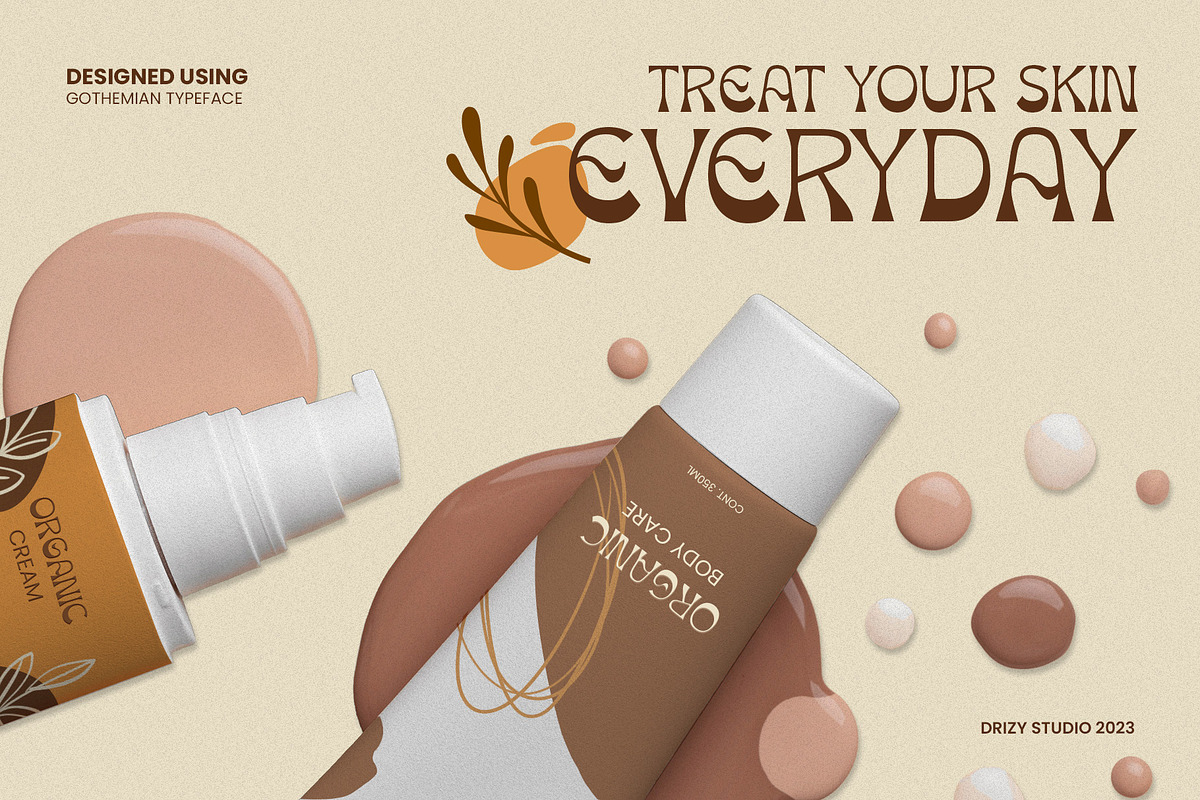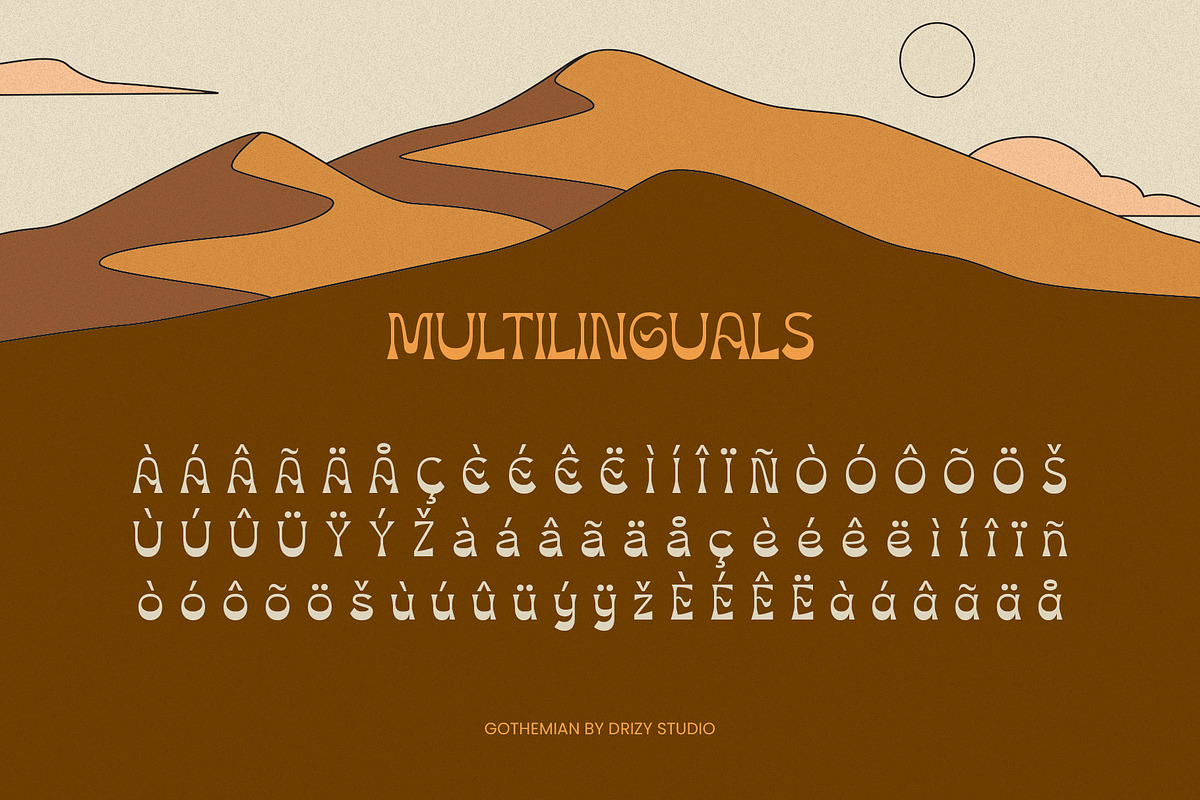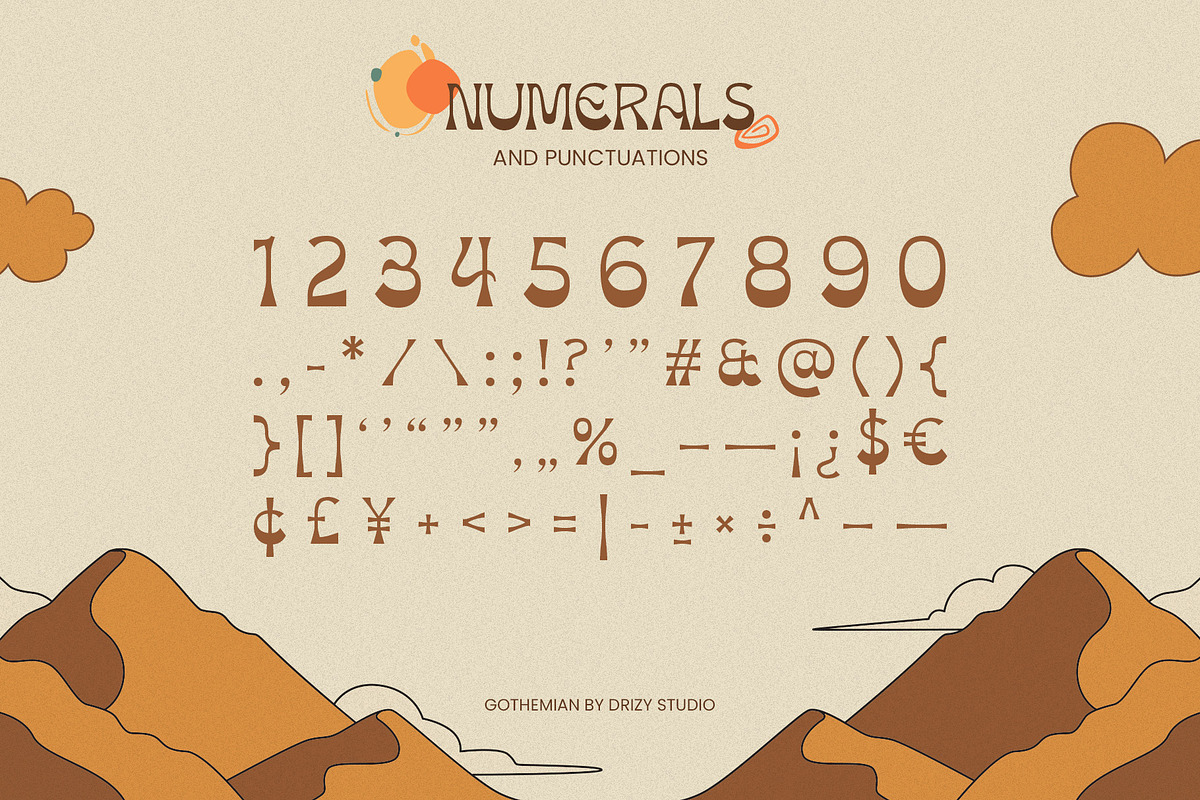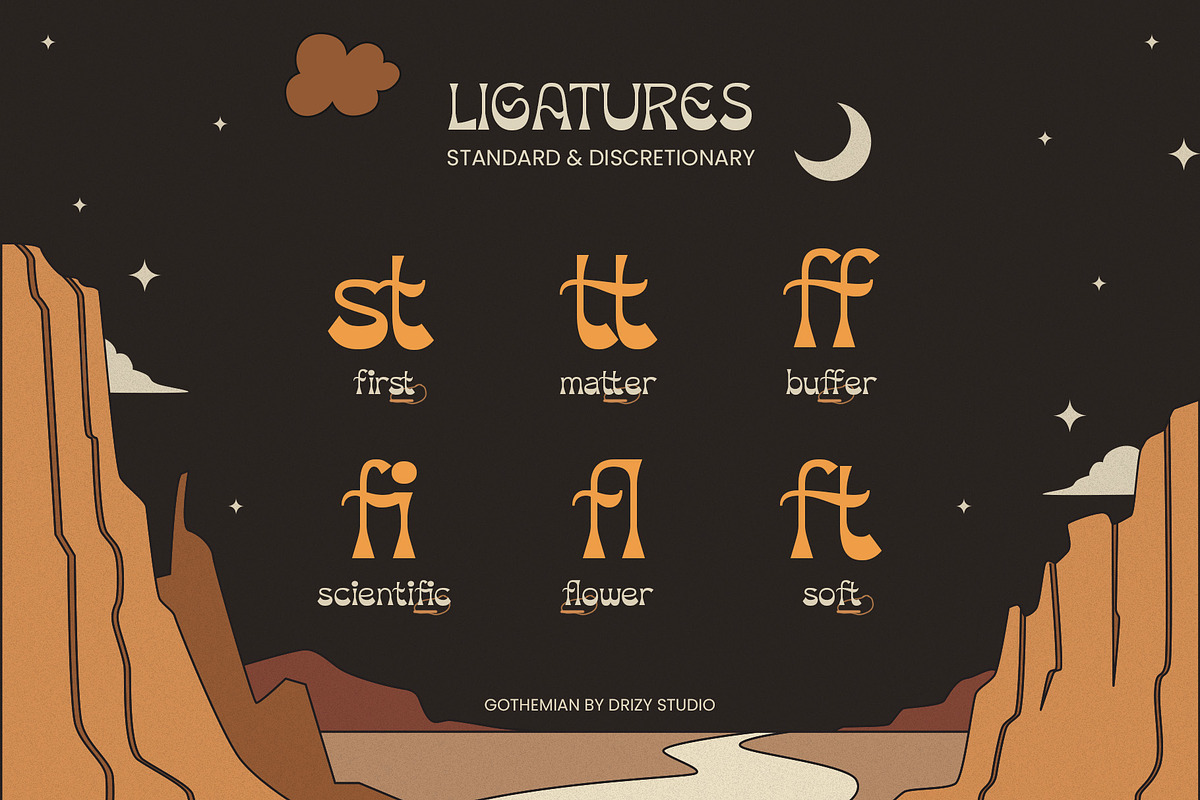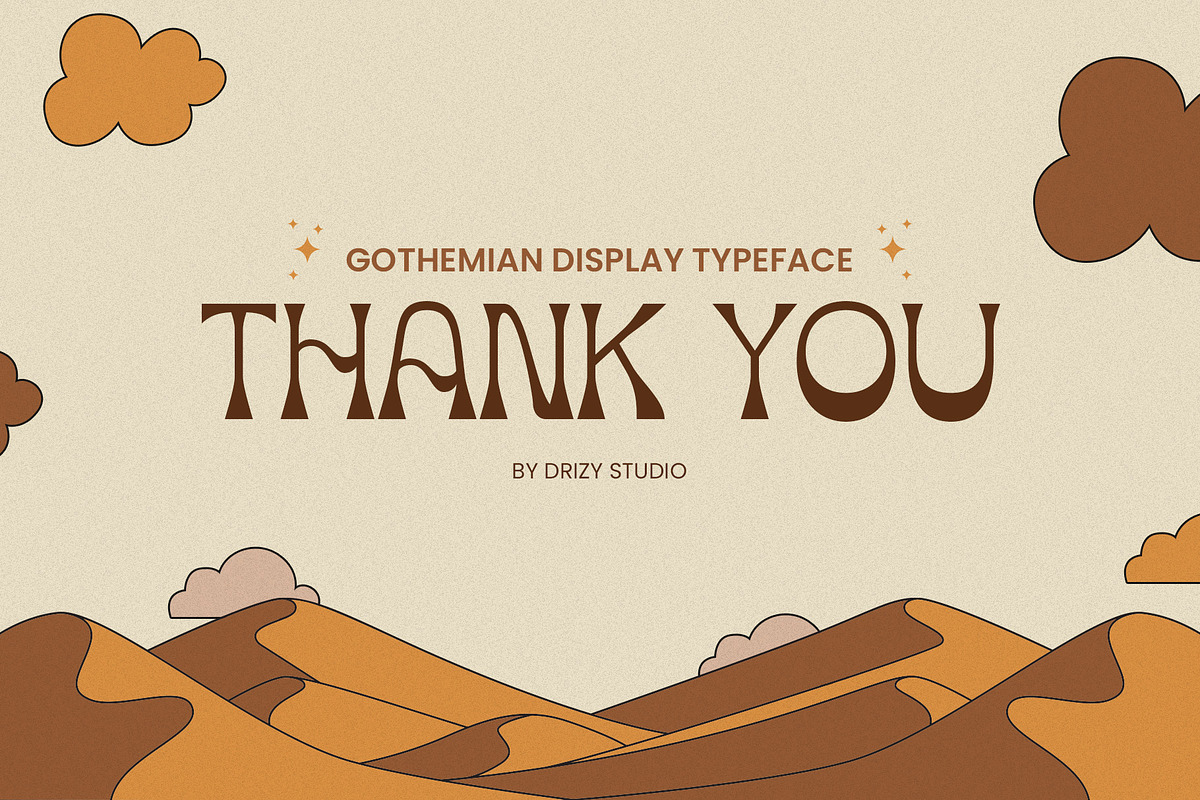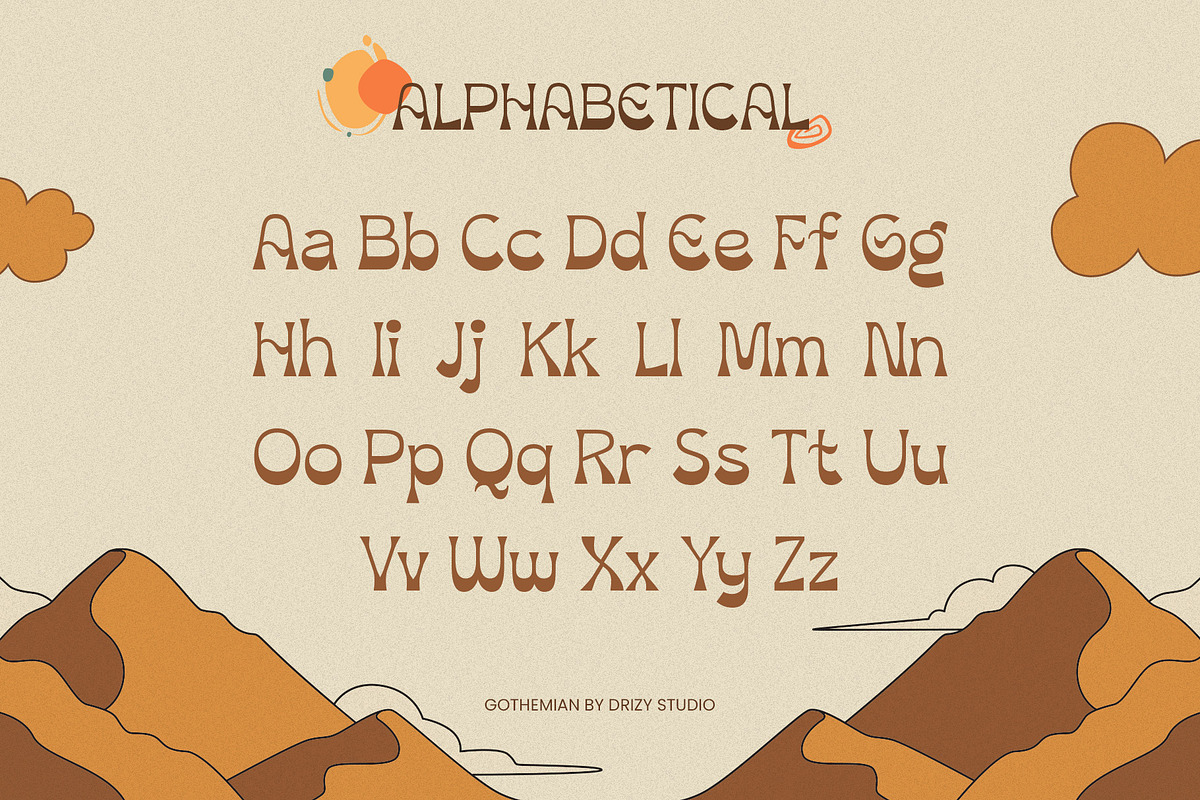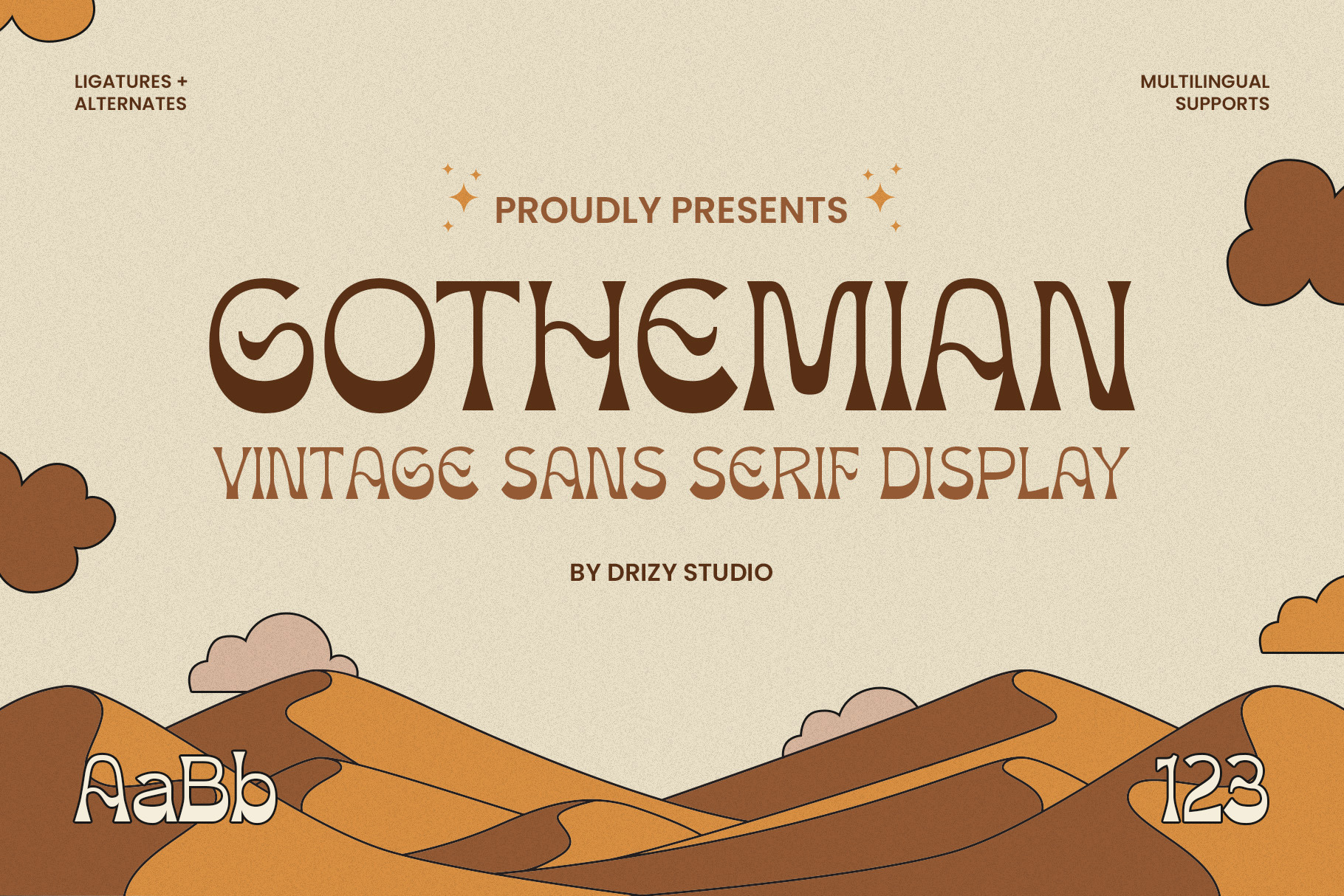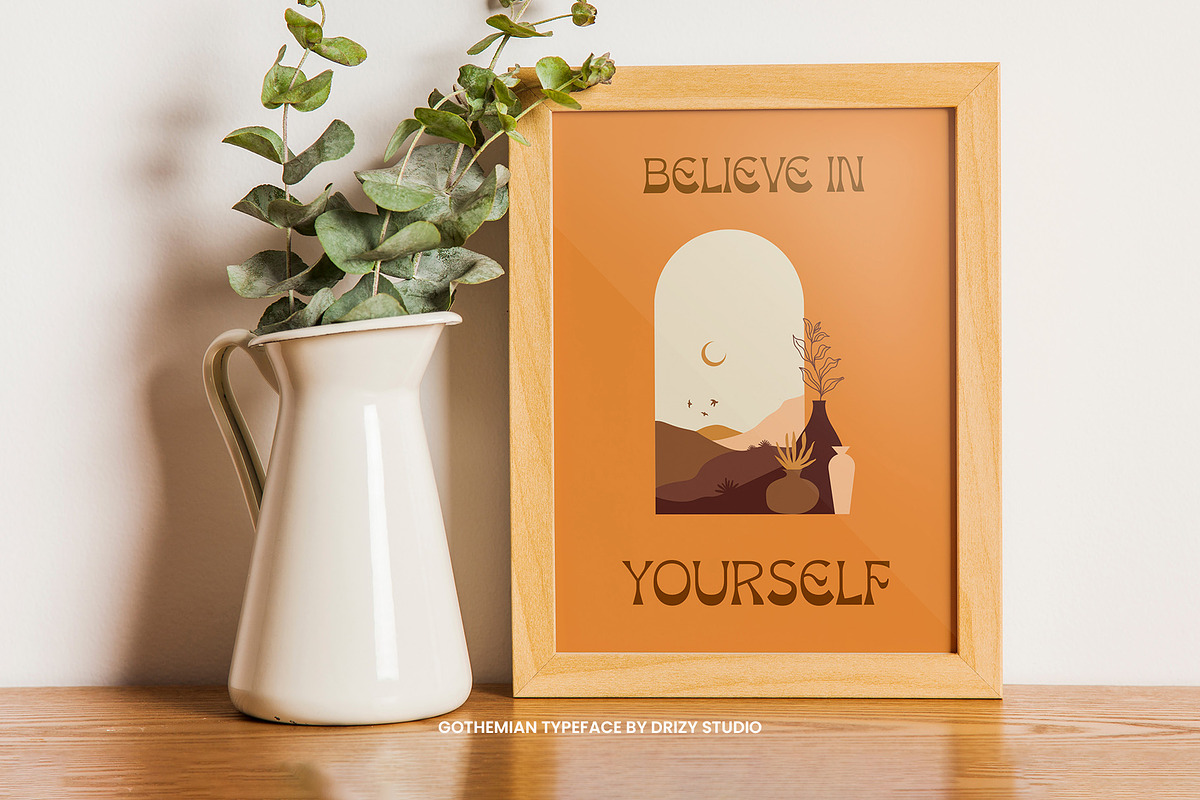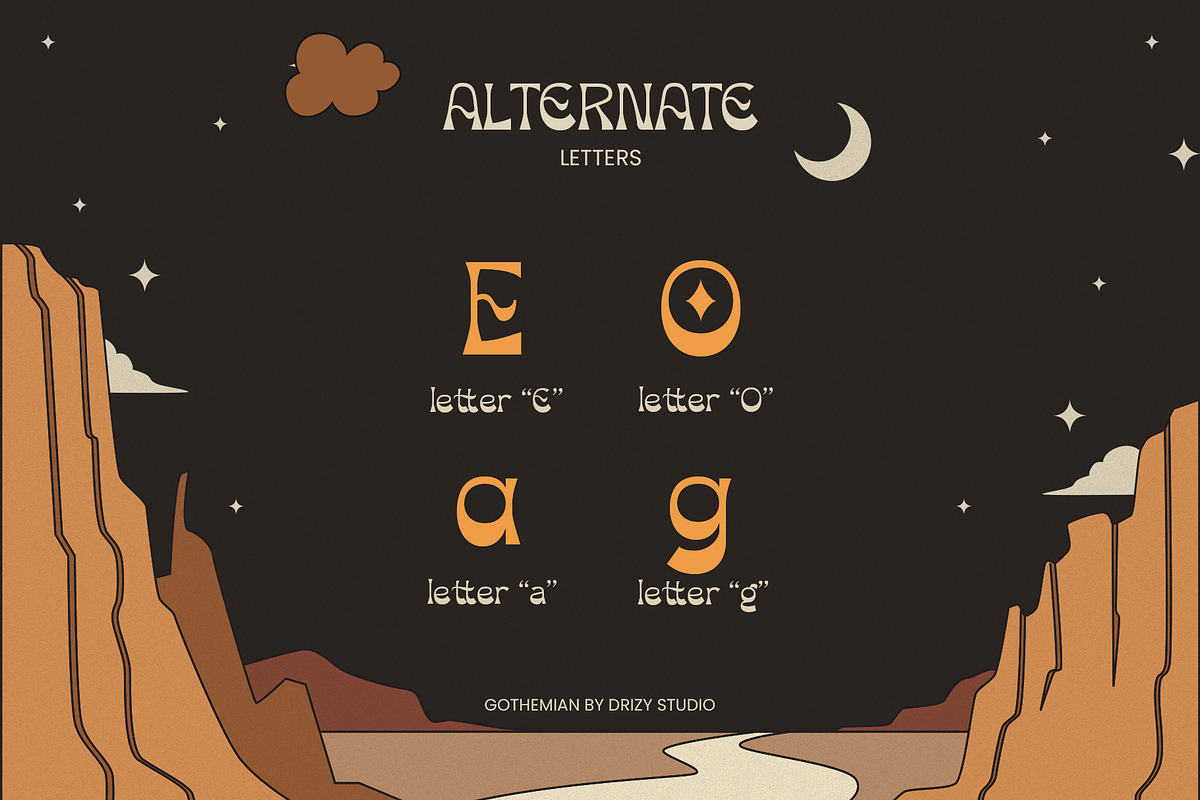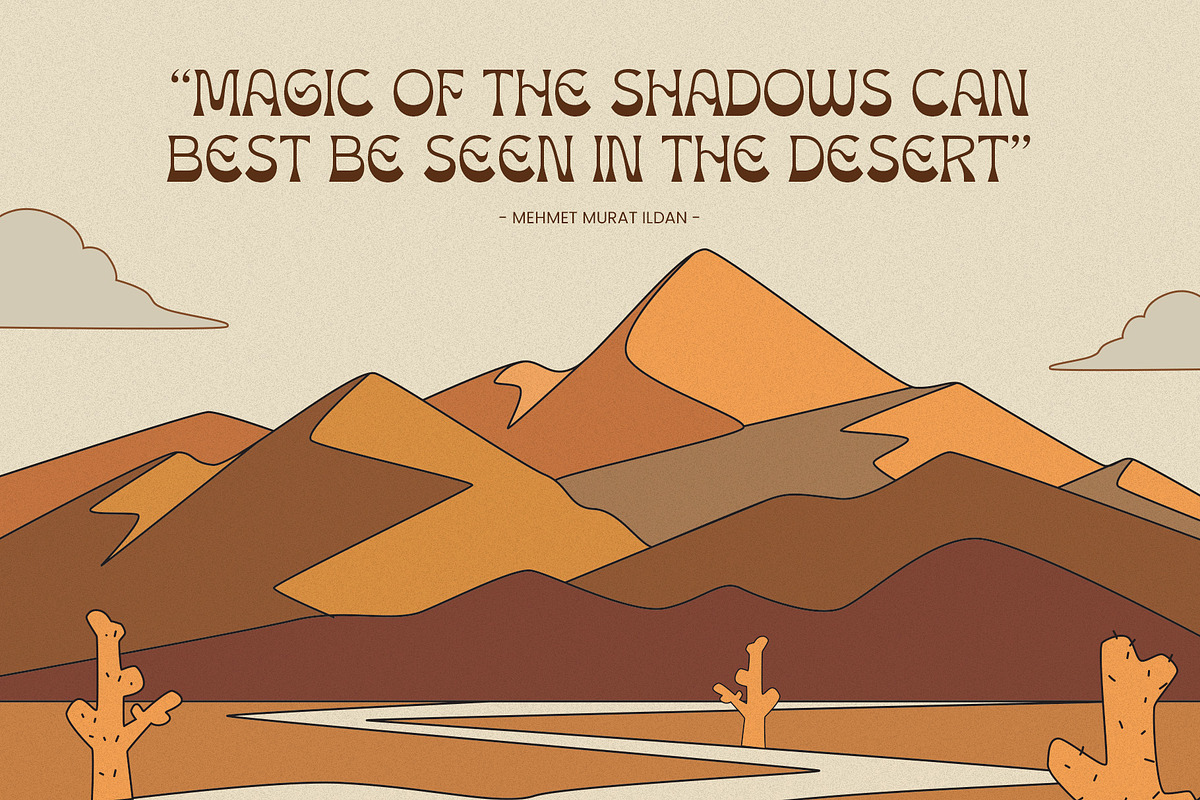
Gothemian - Vintage Sans Serif Font
We're thrilled to present Gothemian, a stunning Vintage Sans Serif Font that seamlessly bridges the gap between the past and the present. Gothemian is a typeface that effortlessly captures the essence of retro design, making it the perfect choice for a wide range of creative projects.
Elevate and explore the design possibilities with this retro font!